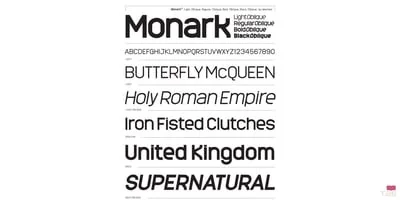
Monark Font
Monark Font is perfect for royal branding, luxury hotel signage, prestigious award ceremonies, high-end fashion labels, exclusive membership clubs, elegant wine collections, regal event invitations, and sovereign institutional identity.
This font is exciting because it embodies absolute sovereignty with majestic authority and timeless royal elegance. Monark Font features commanding letterforms with imperial dignity that evoke the grandeur of monarchical heritage, making it ideal for projects that require supreme prestige and unquestionable aristocratic sophistication.
The Monark Font family includes regular, crown, condensed, and ornamental variants, along with royal alternates and imperial ligatures that enhance its sovereign character. Each weight maintains the font's majestic aesthetic while providing different levels of regal expression for various luxury and prestigious design applications.
Whether you're developing supreme luxury brands, creating distinguished ceremonial materials, or designing prestigious institutional campaigns, Monark Font delivers exceptional majesty and royal appeal. Its distinctive sovereign style makes it an excellent choice for designers seeking to add genuine aristocratic grandeur and monarchical elegance to their projects. The font's versatility extends from luxury palace branding to exclusive membership materials, ensuring consistent performance across all prestigious applications. With its meticulously crafted letterforms and royal proportions, this typeface provides professional results that command absolute respect and establish supreme brand presence with its unmistakable monarchical character and timeless sovereign authority.